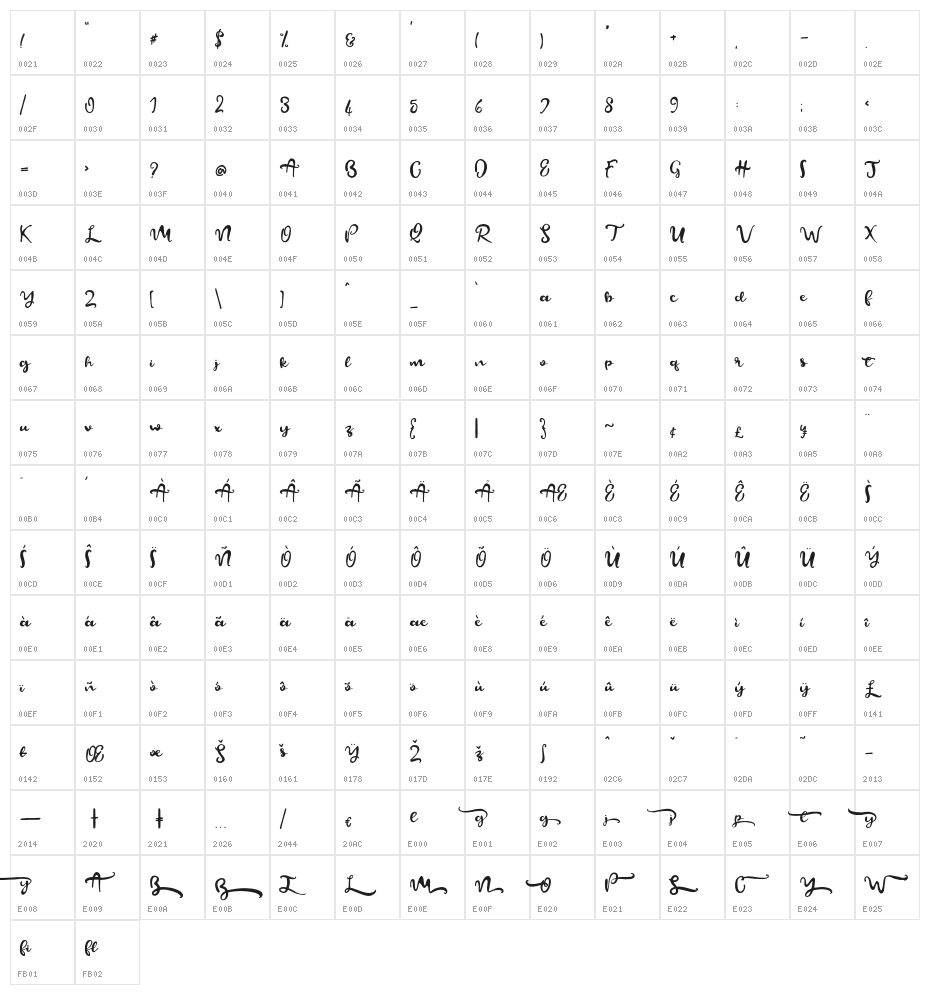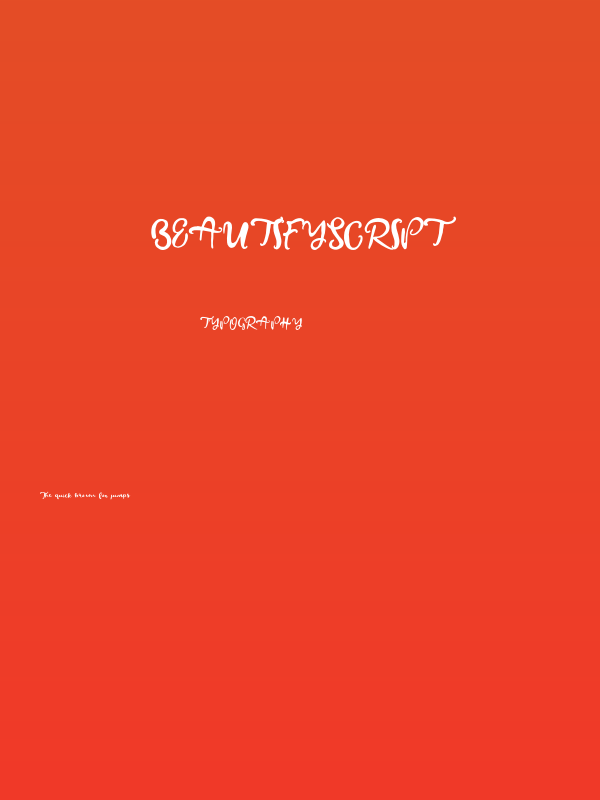
BeautifyScript Font
This font features a playful and elegant script style with smooth, flowing curves and a handwritten appearance. The uppercase letters are bold and expressive, while the lowercase letters maintain a consistent flow, enhancing readability. The numerals are distinct and maintain the same playful style, making them suitable for decorative purposes. Special characters are creatively designed, adding a unique touch to the overall aesthetic. The font's design is ideal for projects that require a personal and artistic feel, such as invitations, greeting cards, and branding materials.
| Use Case | Logos, Headlines, Decorative text |
| Proposed Projects | Ideal for invitations, greeting cards, branding, and decorative projects. |